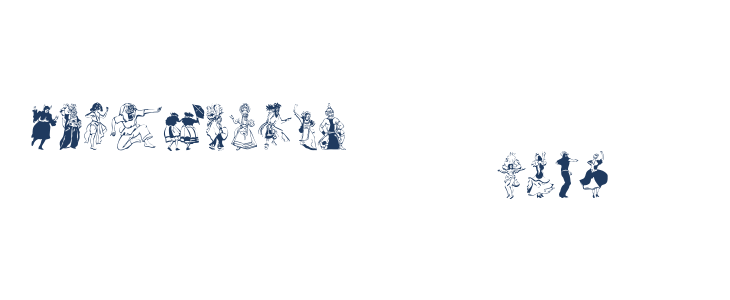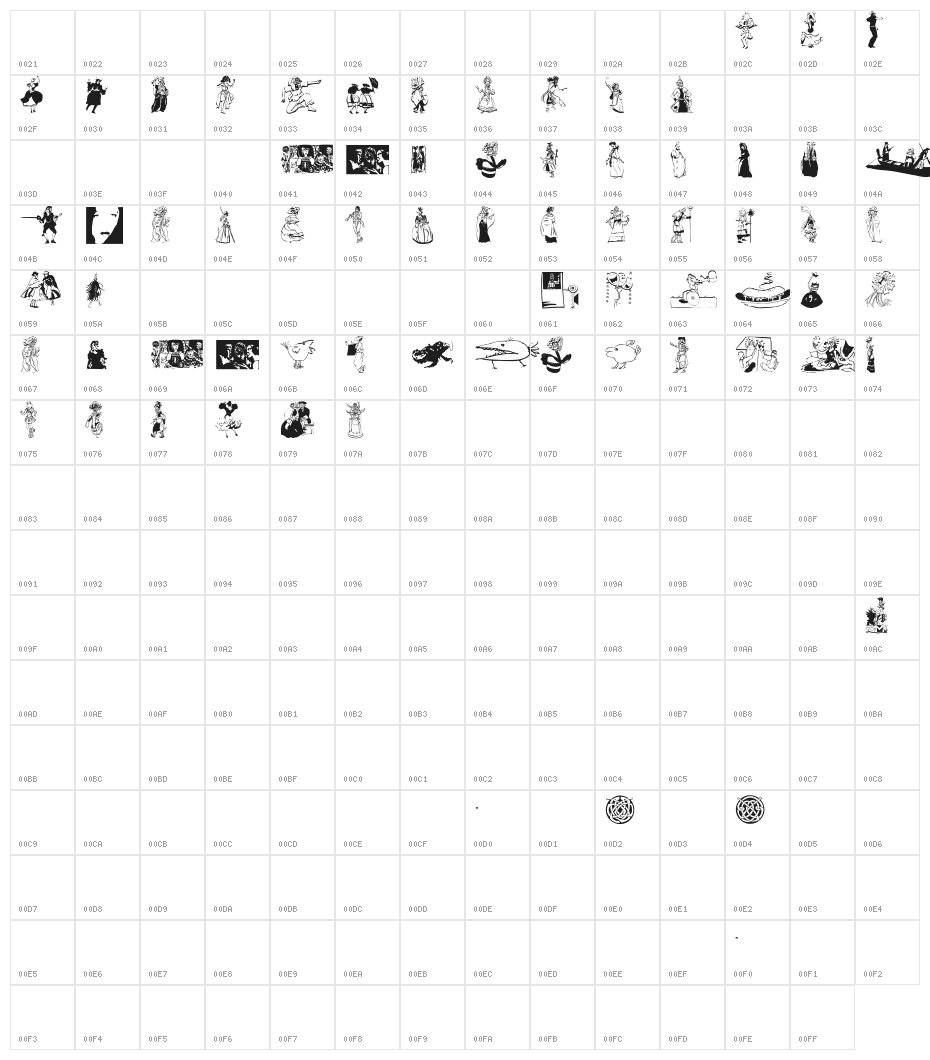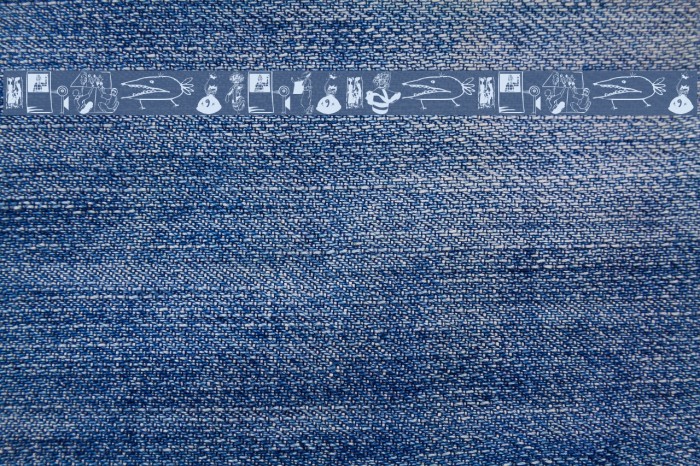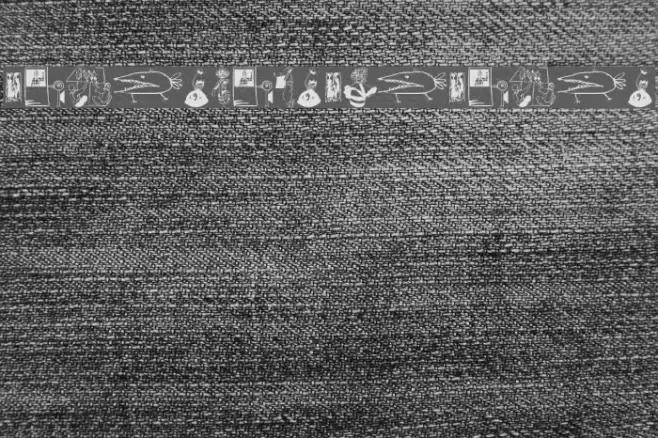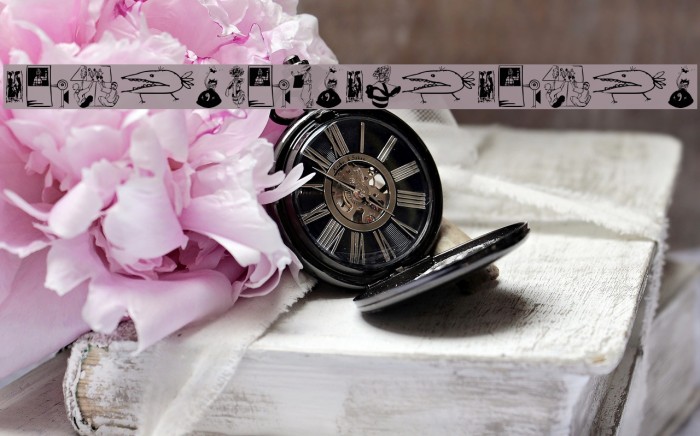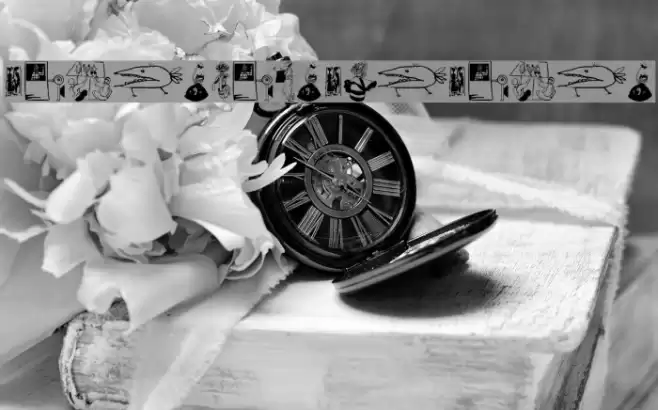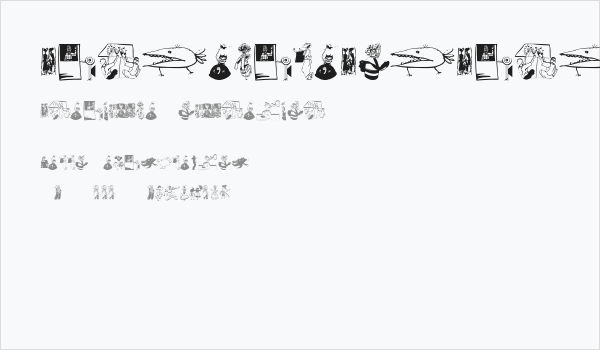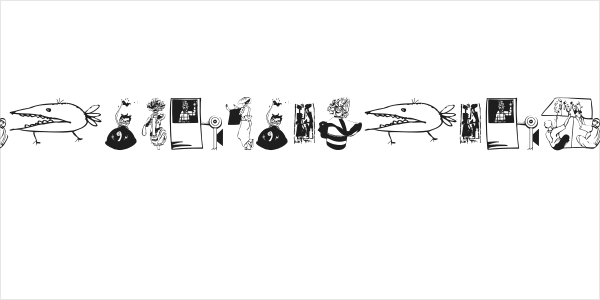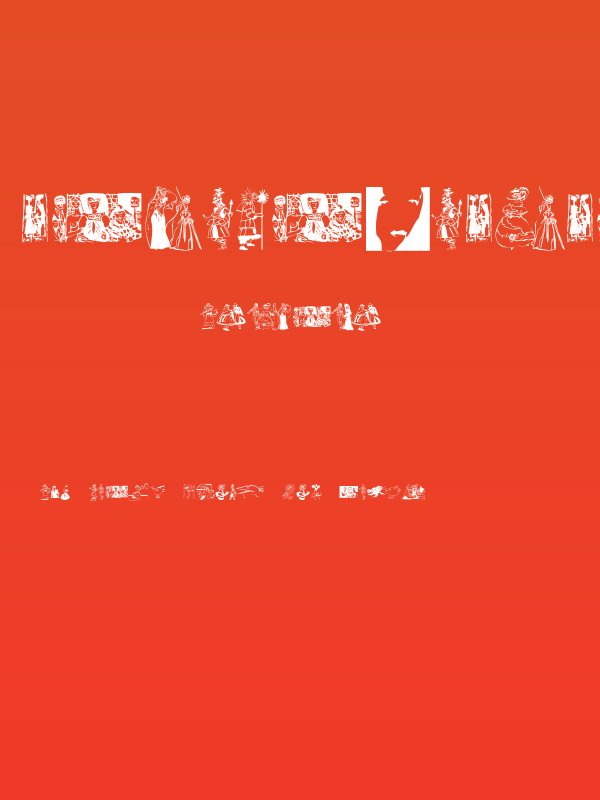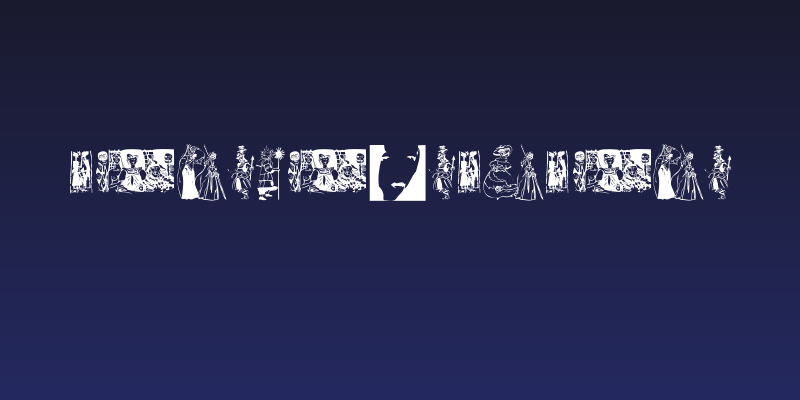
CarnevaleConCarne Font
CarnevaleConCarne Description
A highly decorative and illustrative dingbat font featuring detailed, whimsical drawings of masked figures, carnival scenes, and playful characters inspired by traditional festivities. Each glyph is a unique, intricate illustration rather than a standard letterform, making it more suitable for visual storytelling or thematic design accents.
| Overall Style | Decorative, Whimsical, Festive |
| Use Case | Illustrative accents, Themed graphics, Visual storytelling |
| Proposed Projects | Event posters, invitations, themed party decor, editorial illustrations, childrenΓ’β¬β’s books, festival branding. |